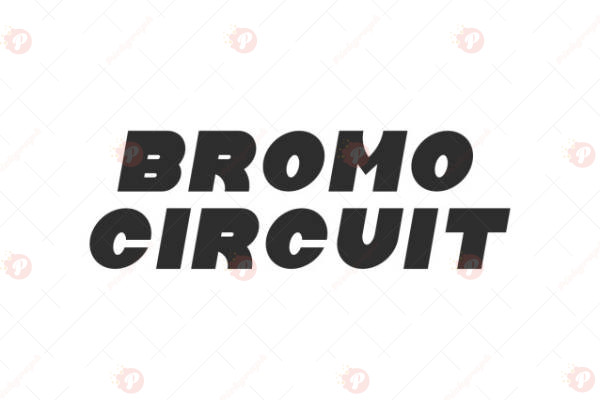
The Bromo Circuit Free Font is a modern, tech-inspired typeface perfect for digital designs, technology projects, futuristic posters, electronic product branding, gaming graphics, and web design.
Its geometric, circuit-like design gives your text a high-tech, innovative feel, making it ideal for logos, UI/UX projects, social media graphics, and electronic music posters. Bromo Circuit Free Font is versatile for both display text and headlines, adding a sleek, modern aesthetic to any project.